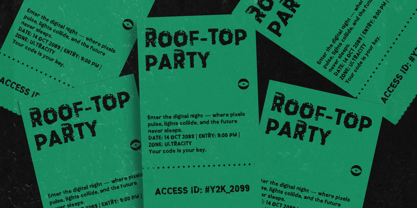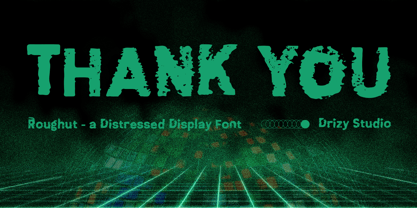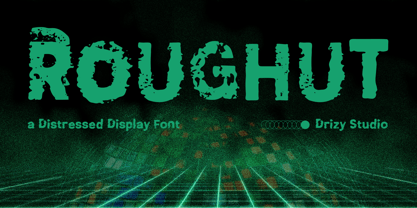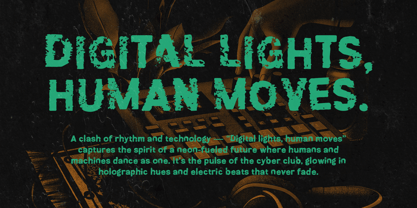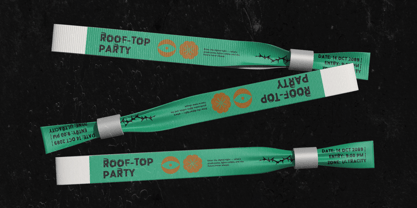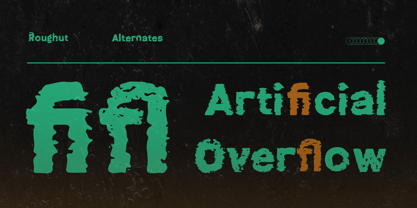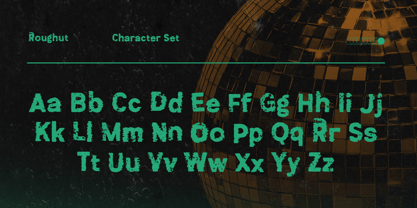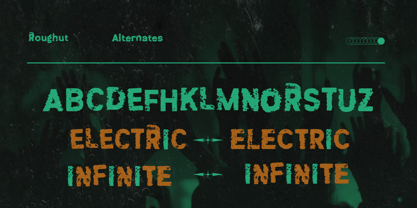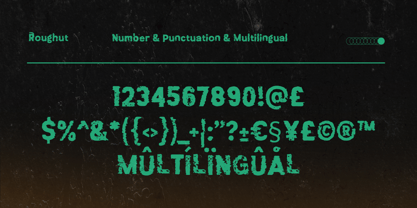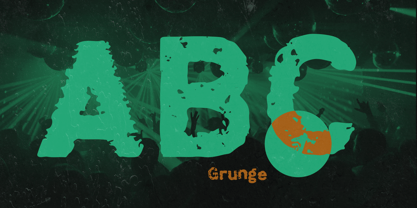
Roughut
by Drizy Font
The Roughut Font Family was designed by Panca Ahmadi Hasan and published by Drizy Font. Roughut contains 1 styles.
Roughut – A Distressed Display Font Roughut is a bold distressed display font with a raw, gritty texture that brings instant character to your designs. Inspired by worn prints, handmade lettering, and vintage grit, it’s perfect for posters, apparel, logos, packaging, album covers, and statement headlines. Roughut stands out best when you want a strong, edgy, and imperfect look that feels authentic and full of attitude. Roughut – A Distressed Display Font features: Uppercase & Lowercase Punctuation & Numbers Multilingual Alternates Ligatures Elevate and explore the design possibilities with this Distressed Font!